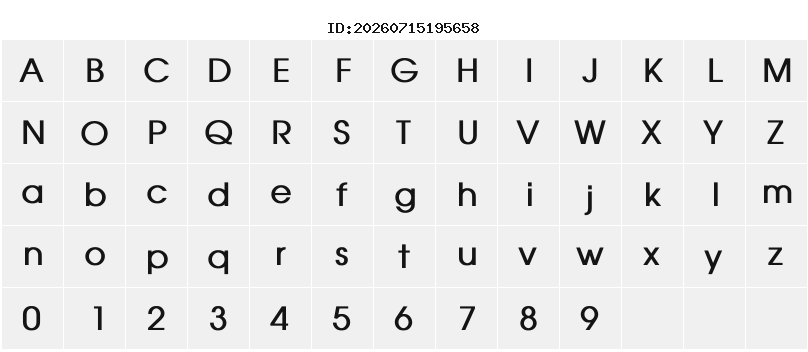
AvantGarde-Book Bold Preview
About AvantGarde-Book Bold.ttf
AvantGarde-Book Bold.ttf is a modern, elegant sans-serif font designed for ultimate readability and visual harmony. Perfect for branding, headlines, web design, and print materials.